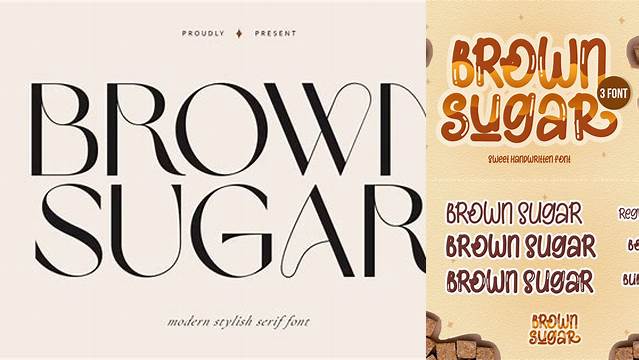
Hey guys! Are you looking to add a touch of warmth and sweetness to your designs? Well, you've come to the right place! In this comprehensive guide, we're diving deep into the world of brown sugar font free download TTF. We'll explore everything from what makes this font so special, where to find it, and how to use it effectively in your projects. Get ready to sprinkle some sugary goodness onto your creative endeavors!
1. What is Brown Sugar Font?
So, what exactly is brown sugar font? Well, it’s not just any ordinary typeface. This font usually evokes a sense of rustic charm, warmth, and handmade quality. Imagine the kind of feeling you get from homemade cookies or a cozy café – that’s the vibe brown sugar fonts often aim for. Often, these fonts feature slightly imperfect lines, a handwritten feel, or a vintage touch that makes them stand out from the sterile perfection of many digital fonts. Because it's a visual element, the brown sugar font influences the viewer's emotions and reactions. It should match the overall message and aesthetic you are going for. Different styles have different effects. Therefore, you can create your own personalized and unique designs that effectively communicate your intended message. Moreover, it is essential to consider the legal aspects associated with using any font. When it comes to using fonts in designs, understanding font licensing is very important. While some fonts are free to use, others may require a commercial license, especially if you plan to use them for business purposes. So, before incorporating any font into your project, it's wise to research the licensing agreements. This ensures you are complying with copyright laws and avoiding any potential legal troubles. Doing so helps you protect yourself legally and maintain the integrity of your creative work. This practice will also foster a culture of respect for designers and their intellectual property.
2. Key Characteristics of Brown Sugar Fonts
When you think of brown sugar font, think of warmth, authenticity, and a touch of sweetness. These fonts often mimic the hand-lettered style, with slight imperfections and a natural flow. This gives them a unique and inviting feel, perfect for projects that need a personal touch. Brown sugar fonts usually showcase a casual, handwritten appearance, with irregular strokes and varying thicknesses. This mimics the natural flow of handwriting, adding a personal and relatable element to your designs. Fonts that fit the brown sugar aesthetic typically feature rounded edges and soft curves, adding to their warm and approachable feel. These design elements make the fonts look more friendly and inviting. Moreover, many brown sugar fonts incorporate a vintage or rustic aesthetic, with textured surfaces or distressed effects that give them a timeless quality. These fonts are great for projects that need a touch of nostalgia or old-world charm. The versatility of brown sugar fonts makes them suitable for a wide range of design applications, including logos, branding materials, posters, invitations, and social media graphics. They can also be paired with other fonts to create more complex and visually appealing designs. In order to make designs that have a strong visual impact, it's important to understand how to pair fonts effectively. It is also important to try to use the brown sugar font carefully. You may want to choose a sans-serif font that has a clean and simple design to pair with it. This combination can strike a balance between personality and readability. In addition, you can improve the visual appeal of your designs by experimenting with different font sizes, weights, and spacing. This helps you to create designs that are both visually appealing and easy to read.
7. Using Brown Sugar Font in Graphic Design
Brown sugar font is a fantastic choice for graphic design projects that need a warm, inviting, and slightly rustic feel. Its unique characteristics make it suitable for a variety of applications. You can use the brown sugar font for logos. If you're designing a logo for a bakery, coffee shop, or handmade goods store, a brown sugar font can add a touch of authenticity and charm. The font's hand-lettered style conveys a sense of personal touch, making your brand more approachable. Another use case for brown sugar font is in branding materials. To create a cohesive brand identity, use the brown sugar font in your business cards, letterheads, and packaging. Its distinctive look will help your brand stand out and leave a lasting impression. You may also want to use it on social media graphics. The font can add personality and flair to your posts. Using it for headings or quotes can capture your audience's attention. With its unique charm and warmth, it's sure to resonate with your followers. Another great way to use brown sugar font is in posters and flyers. If you're promoting a local event, farmer's market, or craft fair, using it can create a warm and inviting atmosphere. Its rustic and handmade feel will appeal to those who appreciate artisanal products. The versatility of brown sugar font makes it a valuable asset for graphic designers. By incorporating this font into your projects, you can enhance their visual appeal and create a more authentic and engaging experience for your audience. Remember to experiment with different font pairings and design elements to achieve the perfect look for your project.
8. Pairing Brown Sugar Font with Other Fonts
Choosing the right font pairing can significantly enhance the visual appeal of your designs. When using brown sugar font, it's important to select fonts that complement its unique characteristics. One effective strategy is to pair a brown sugar font with a clean and simple sans-serif font. This combination creates a balance between personality and readability. Sans-serif fonts like Open Sans or Montserrat provide a neutral backdrop that allows the brown sugar font to shine. Another option is to pair it with a classic serif font. Serif fonts like Times New Roman or Georgia can add a touch of elegance and sophistication to your designs. However, make sure the serif font isn't too ornate, as this can clash with the brown sugar font's rustic charm. Additionally, you can also try pairing a brown sugar font with a script font. When pairing fonts, consider the overall tone and style of your design. If you want to create a warm and inviting atmosphere, stick to fonts with rounded edges and soft curves. If you want to achieve a more modern look, opt for fonts with clean lines and geometric shapes. Another important tip is to limit the number of fonts you use in a single design. Using too many fonts can make your design look cluttered and disorganized. As a general rule, stick to two or three fonts at most. When choosing font pairings, experiment with different combinations and see what works best for your project. You can use online tools like FontPair to find inspiration and discover new font combinations. Ultimately, the goal is to create a cohesive and visually appealing design that effectively communicates your message.
9. Using Brown Sugar Font for Logos
A logo is often the first point of contact between a business and its potential customers, making it crucial to create a strong and memorable visual identity. Brown sugar font can be an excellent choice for logos, especially for businesses that want to convey a sense of warmth, authenticity, and handmade quality. One of the key advantages of using a brown sugar font in a logo is its unique and distinctive appearance. Its hand-lettered style and rustic charm can help your logo stand out from the competition and leave a lasting impression on your audience. However, it's important to use the font strategically to ensure it aligns with your brand's identity and values. When designing a logo with a brown sugar font, consider the overall style and tone you want to convey. If you want to create a cozy and inviting atmosphere, opt for a font with rounded edges and soft curves. If you want to achieve a more vintage look, choose a font with textured surfaces or distressed effects. Also, think about how the brown sugar font will interact with other elements in your logo, such as symbols, icons, and colors. Ensure that the font complements these elements and creates a cohesive and visually appealing design. Keep in mind that readability is crucial in logo design. Choose a brown sugar font that is easy to read and legible, even at small sizes. Avoid fonts with overly intricate details or decorative elements, as these can make your logo difficult to decipher. Finally, test your logo on different backgrounds and in various sizes to ensure it looks good in all contexts. By carefully considering these factors, you can create a logo with a brown sugar font that effectively represents your brand and resonates with your target audience.
21. Brown Sugar Font for Restaurant Menus
22. Using Brown Sugar Font in E-books
23. Brown Sugar Font and Personal Projects
24. The Evolution of Handwritten Fonts
25. Brown Sugar Font and Vintage Design
26. Brown Sugar Font and Modern Design
29. Future Trends in Font Design
30. Advanced Typography Techniques